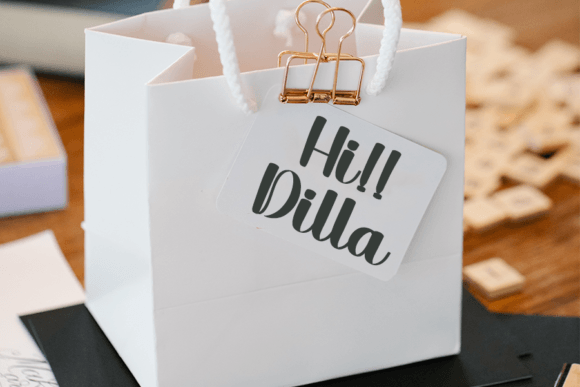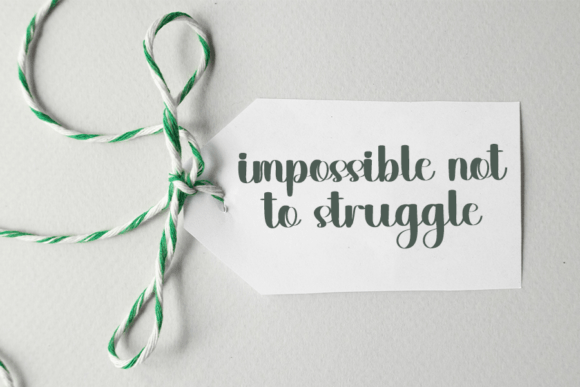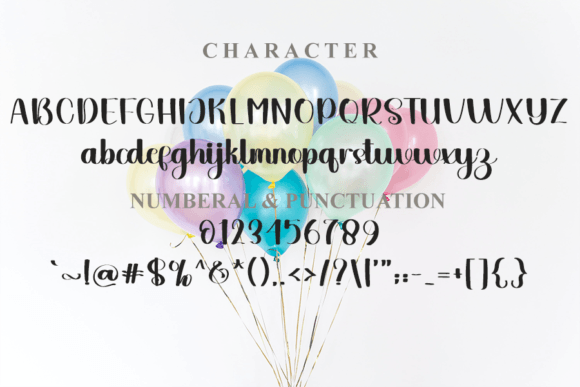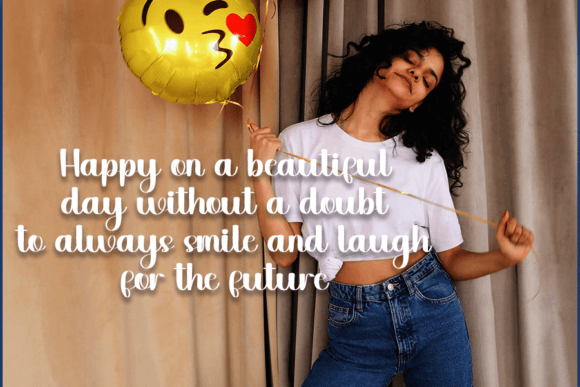
Happy Birthday to Your Design Projects!
Do you remember that moment when you stumbled upon the perfect font to elevate your design project? For many of us, it’s a moment of pure joy and excitement. And today, we’re thrilled to introduce you to a font that’s sure to bring that same feeling – the Birthday Font!
This trendy handwritten font boasts a contemporary atmosphere and impeccable form, inspired by the timeless classic calligraphy. It’s perfect for adding a touch of elegance and class to any design project, from invitations and greeting cards to social media posts and product packaging. As a designer, you know how valuable it is to have the right font to convey your message and make a lasting impression. That’s why we’re excited to share the Birthday Font with you – it’s a game-changer for any design project.
Birthday Font Key Features
- Font Style: A playful, cursive font designed specifically for birthday celebrations and special occasions.
- Unique Characteristics: Features swashes and flourishes, adding a touch of elegance and whimsy to birthday-themed designs.
Birthday Font Review
Overall, I have mixed feelings about the Birthday Font. While it’s a fun and playful typeface, I think it falls short in some areas.
- The font is extremely customizable, with a wide range of options for colors, sizes, and effects.
- The Birthday Font has a clear, easy-to-read design that’s perfect for party invitations, greeting cards, and other celebratory materials.
- The font comes in a variety of weights and styles, making it suitable for both digital and print applications.
- The font’s design can feel a bit cheesy and over-the-top, which may not be suitable for all occasions or brands.
While the Birthday Font is a fun and playful typeface, its limitations and compatibility issues hold it back from being a top choice for designers. If you’re looking for a font that’s perfect for birthday parties and celebrations, it might be worth considering, but for more serious projects, I’d recommend exploring other options.
For the most effective use of the Birthday Font, use it for celebratory graphics, party invitations, and social media posts. You can also use it for DIY party decorations and custom gift tags. Experiment with different font sizes and colors to add a pop of color to your designs.